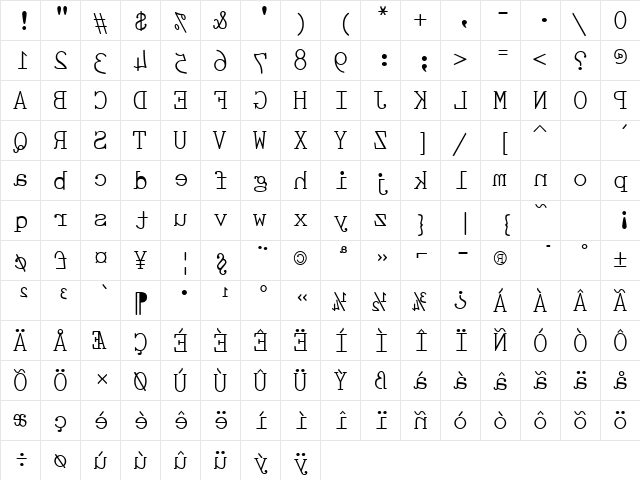
Sdrawkcab Regular
Design Context for Sdrawkcab Typeface
Sdrawkcab takes a measured approach to typography — its balanced proportions and neutral character make it a reliable workhorse for both digital and print work.
Pro Tip: Use Sdrawkcab in both headline and body roles to test its range before committing to a single application.